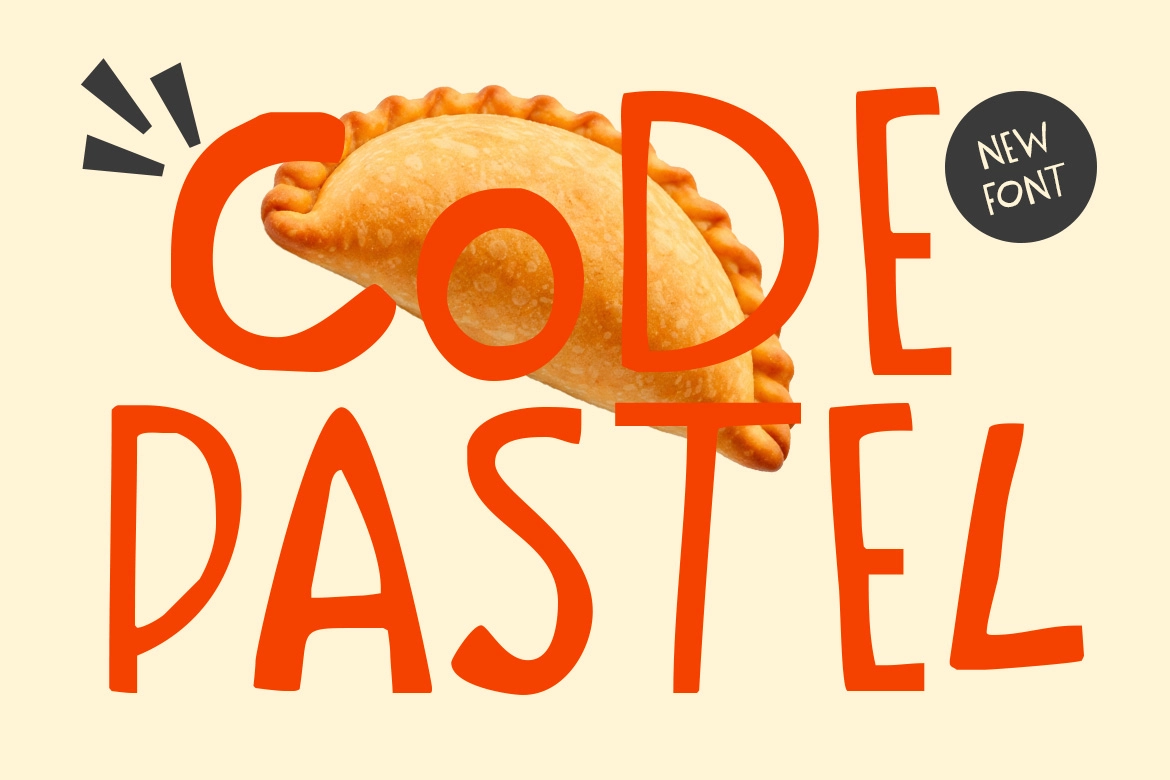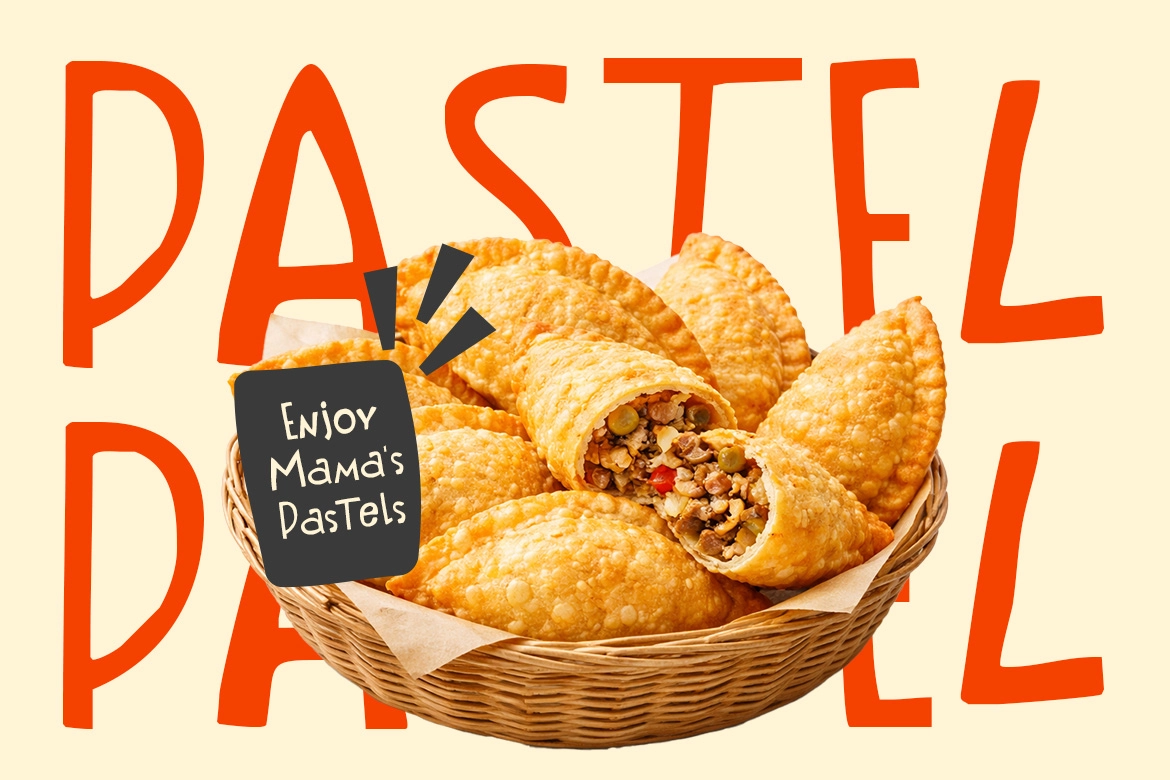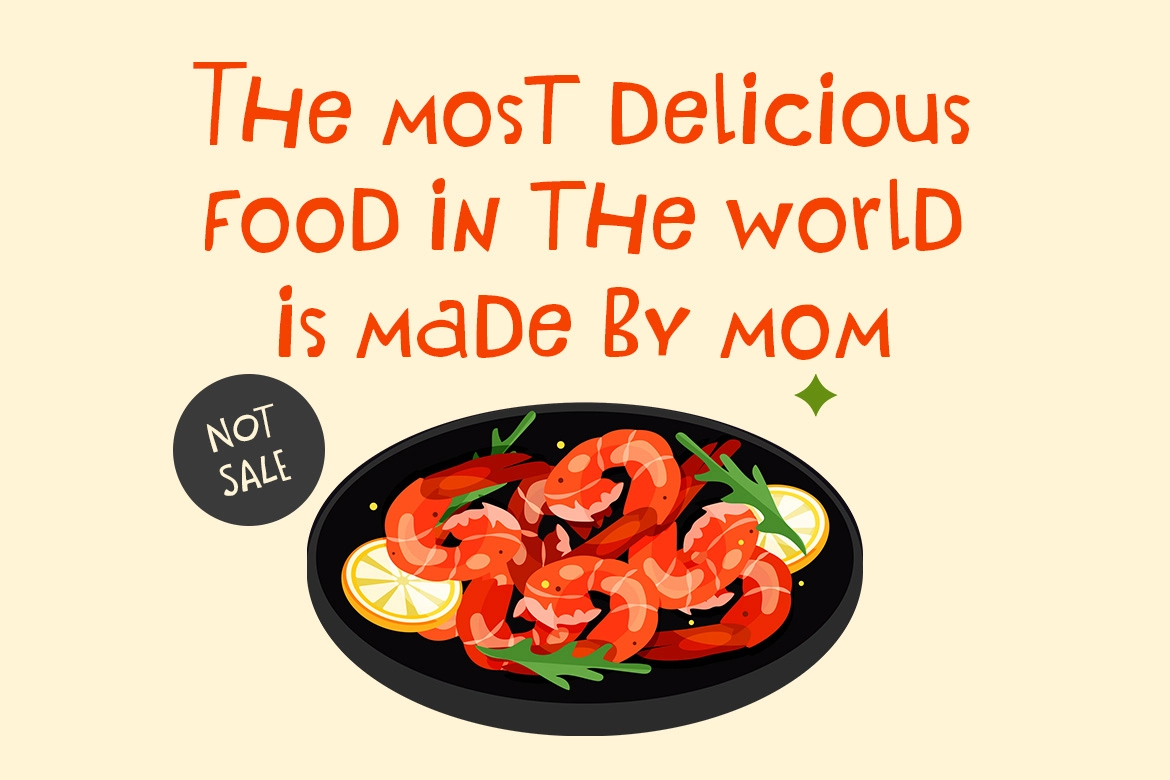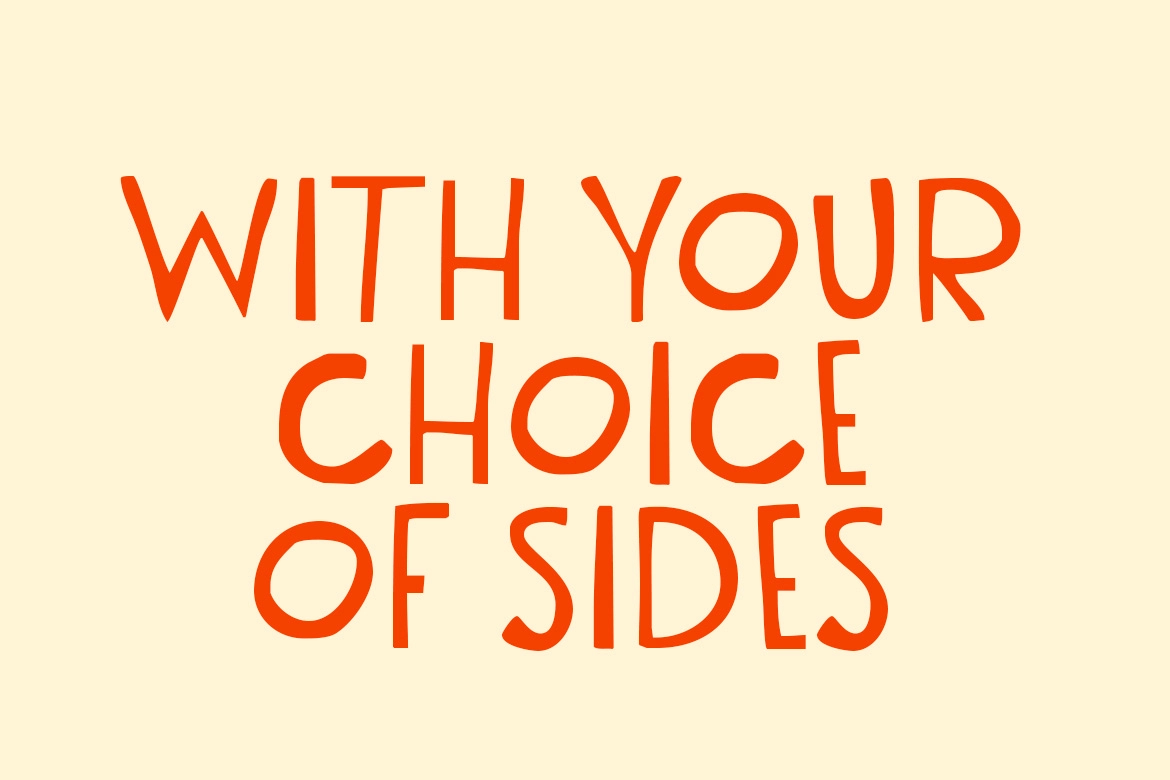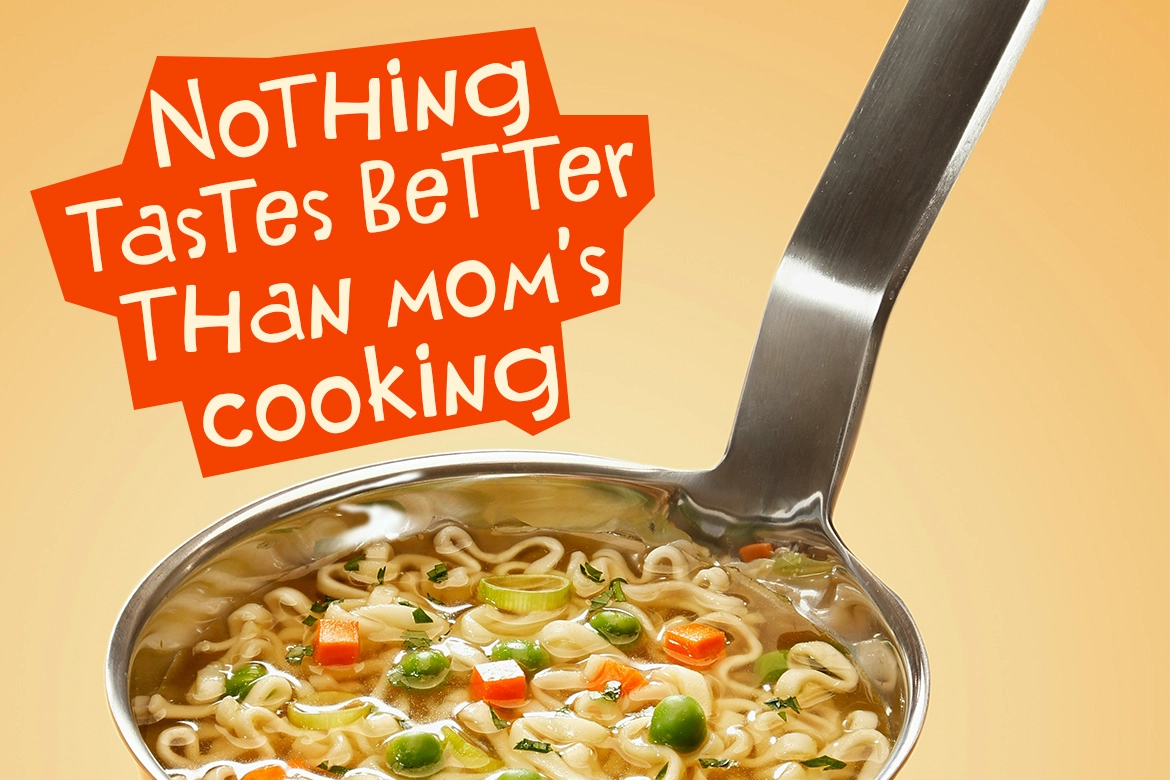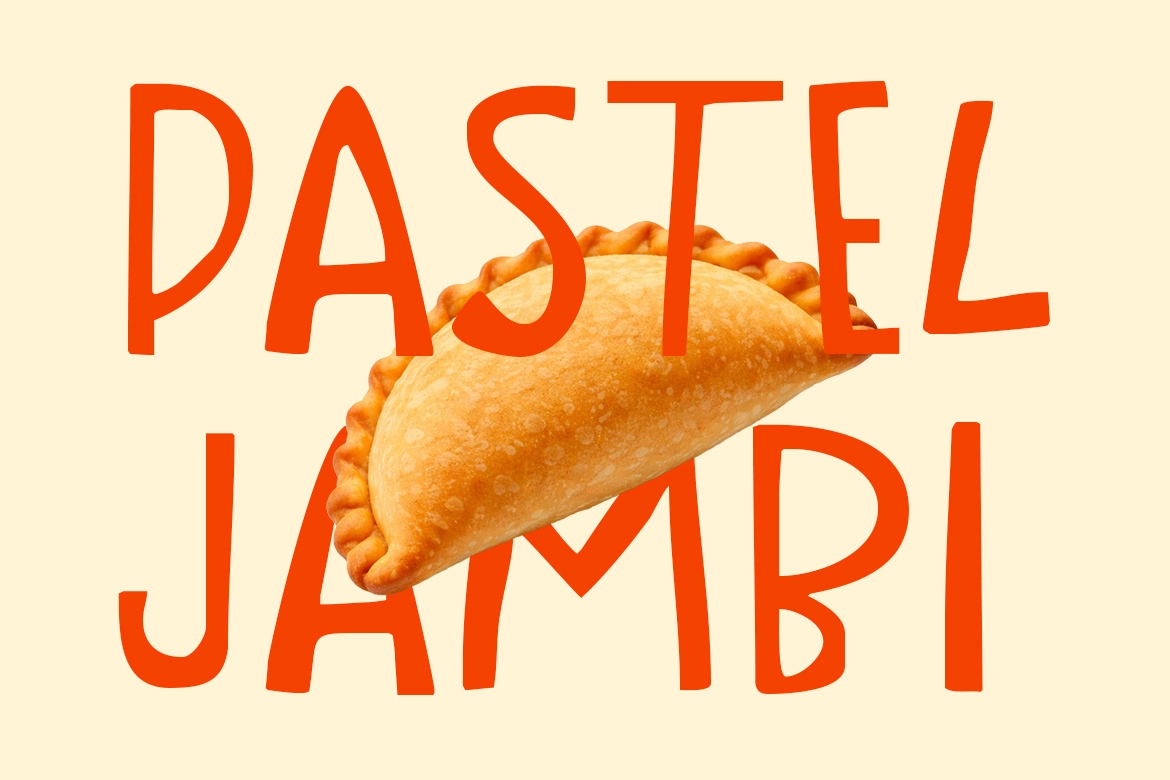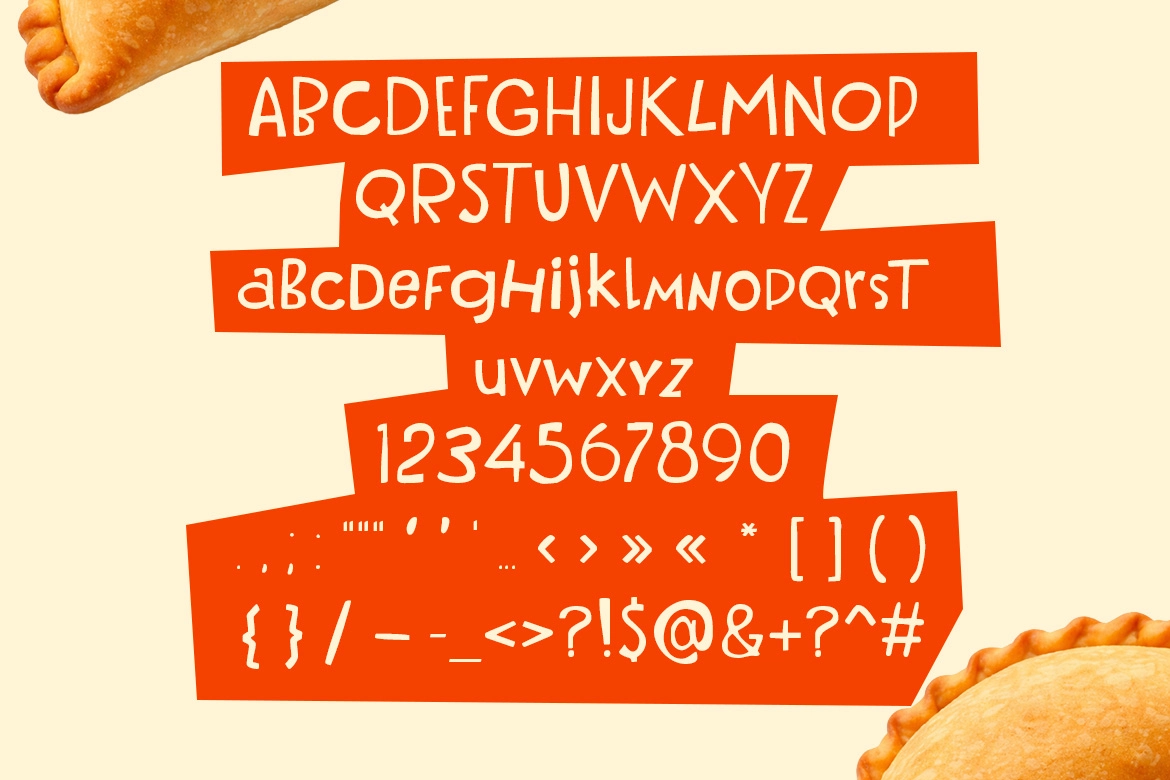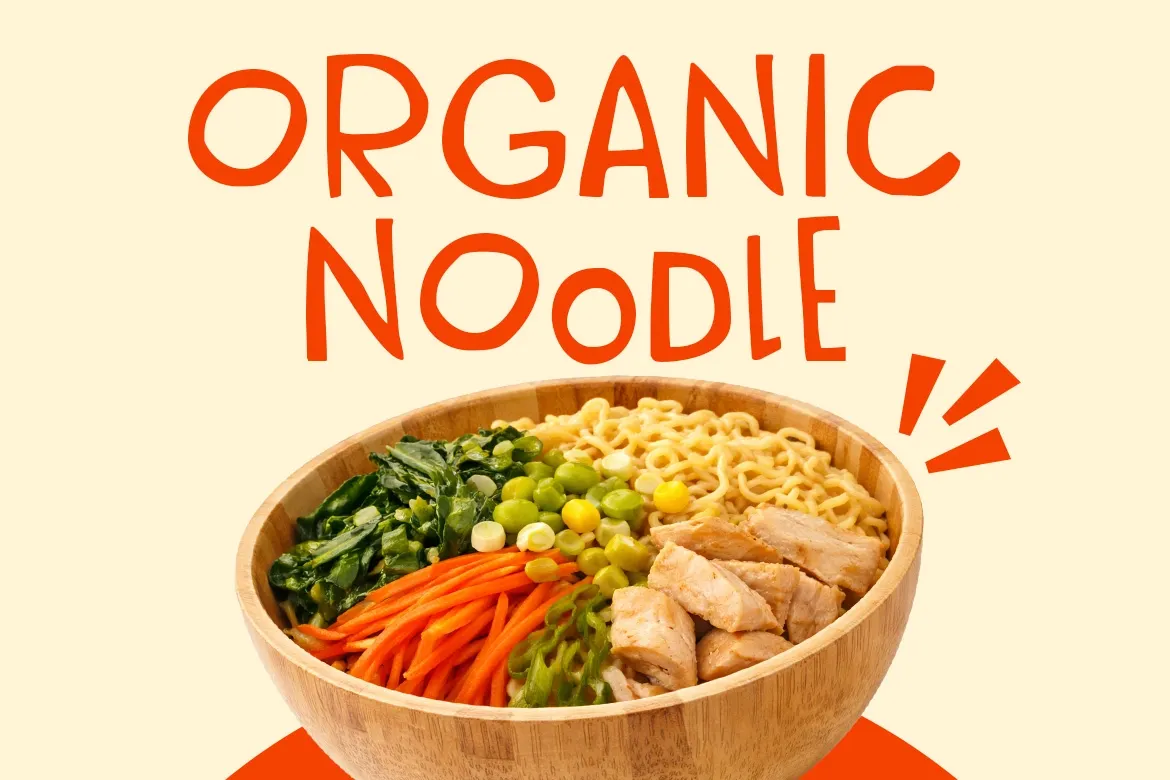
Code Pastel - Fun Display Font
Code Pastel
Code Pastel - Fun Display Font is a bold, hand-drawn typeface with playful irregular strokes and organic letterforms. Its rounded shapes and imperfect rhythm create a whimsical, friendly look that feels natural and full of personality.
Perfect for food packaging, branding, posters, and eye-catching headlines, Code Pastel brings a cheerful and approachable vibe to any design, combining handcrafted charm with a strong visual presence.
- Uppercase & lowercase characters
- Hand-drawn display style